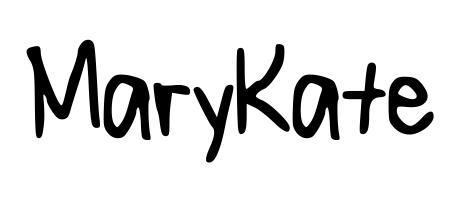
MaryKate
MaryKate: A whimsical script font, brimming with childlike charm. Its playful curves and slightly uneven strokes evoke a sense of carefree energy and youthful spontaneity. Perfect for projects needing a touch of sweet, hand-drawn authenticity. Imagine it adorning a birthday card or a children''s book.